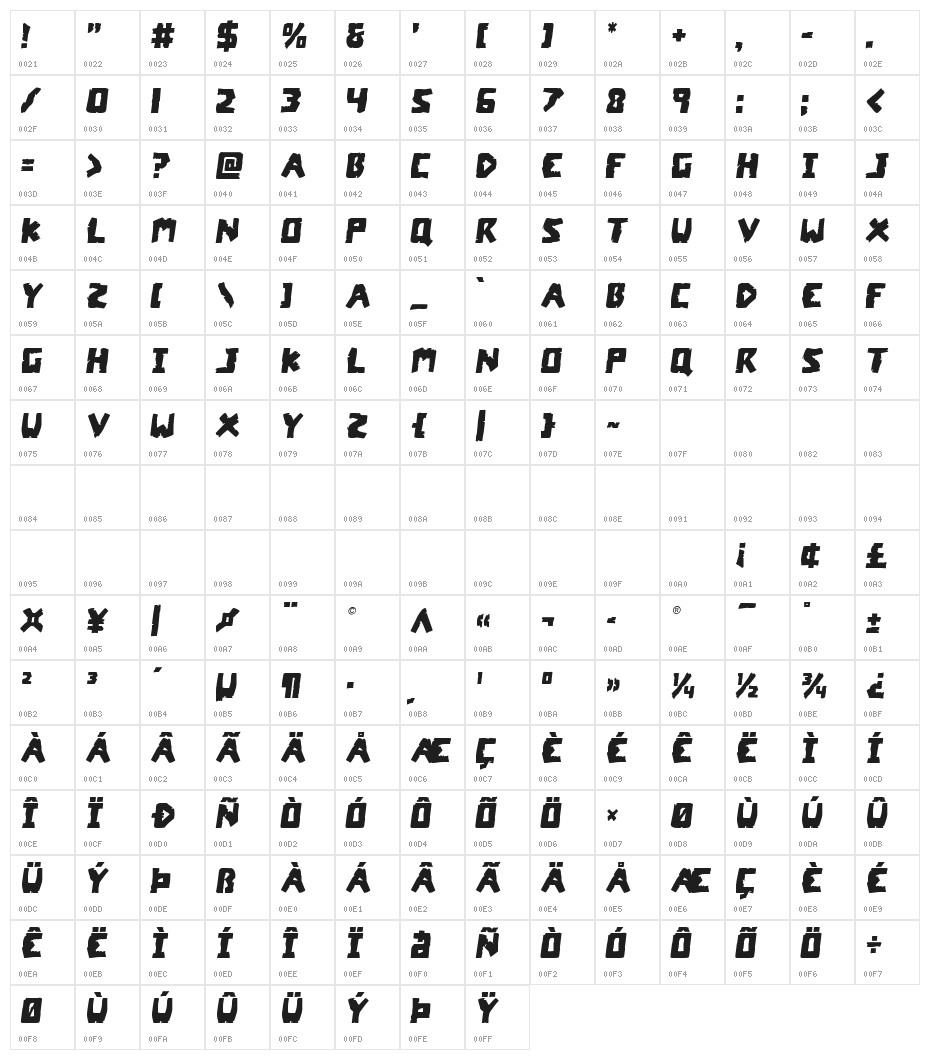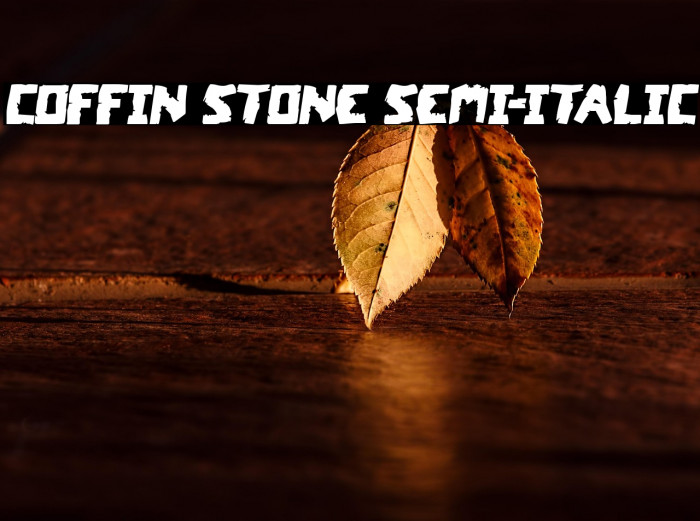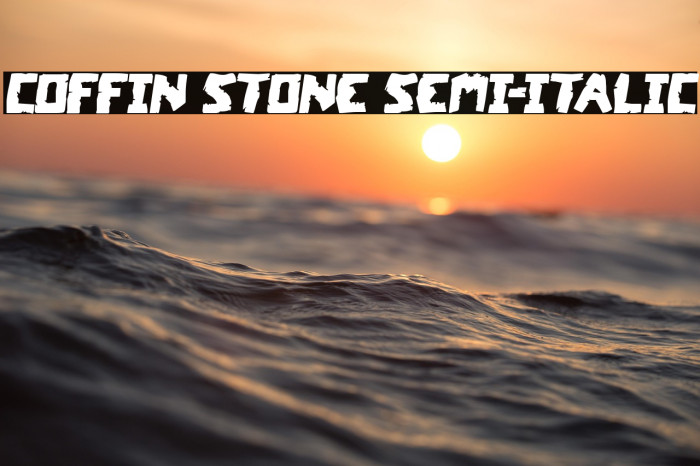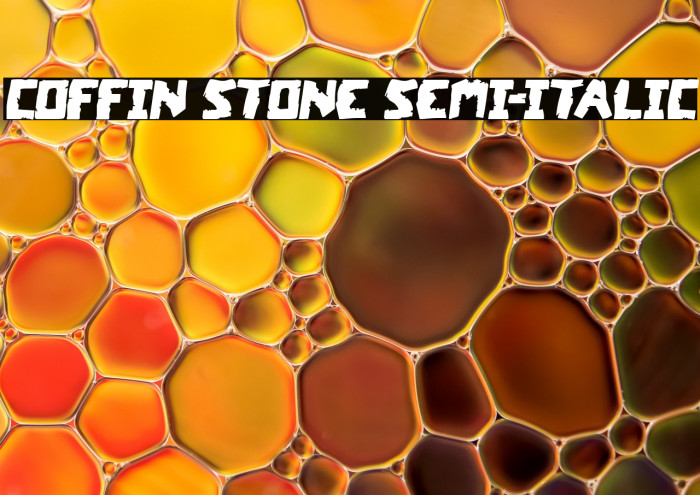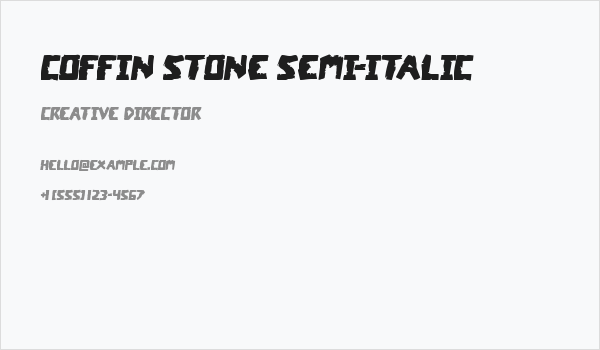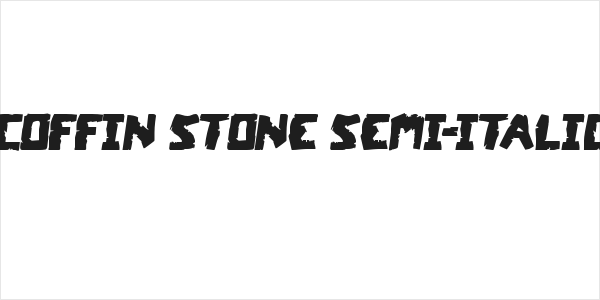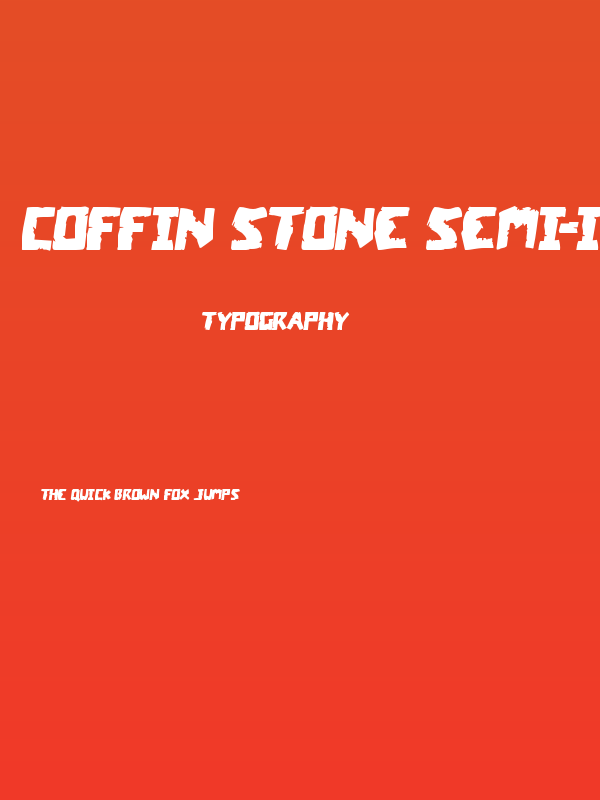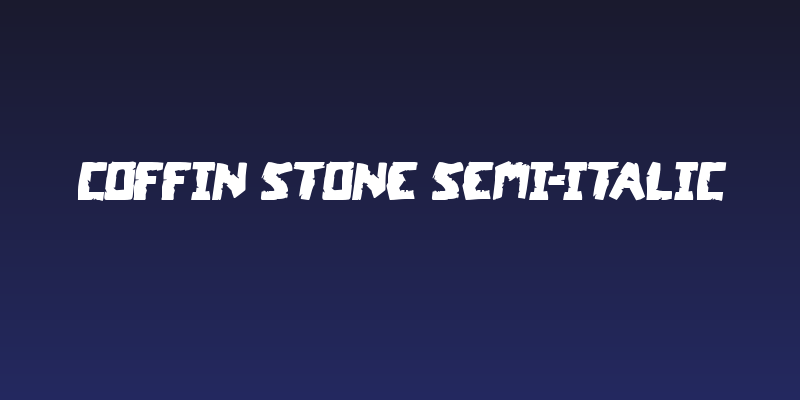
Coffin Stone Semi-Italic Font
Coffin Stone Semi-Italic Description
This font features a bold and rugged style with a semi-italic slant, giving it a dynamic and edgy appearance. The characters are heavily stylized with rough, jagged edges that evoke a sense of raw energy and intensity. The uppercase and lowercase letters maintain a consistent design, with the uppercase being more pronounced. Numbers and special characters follow the same bold and rough aesthetic, ensuring uniformity across all glyphs. The font's unique style makes it stand out, making it suitable for projects that require a strong visual impact.
| Proposed Projects | Ideal for posters, album covers, video game titles, and any project needing a bold, impactful look. |